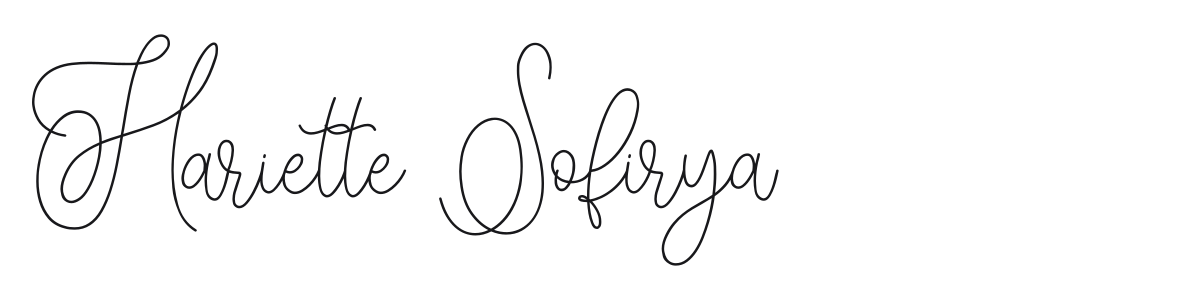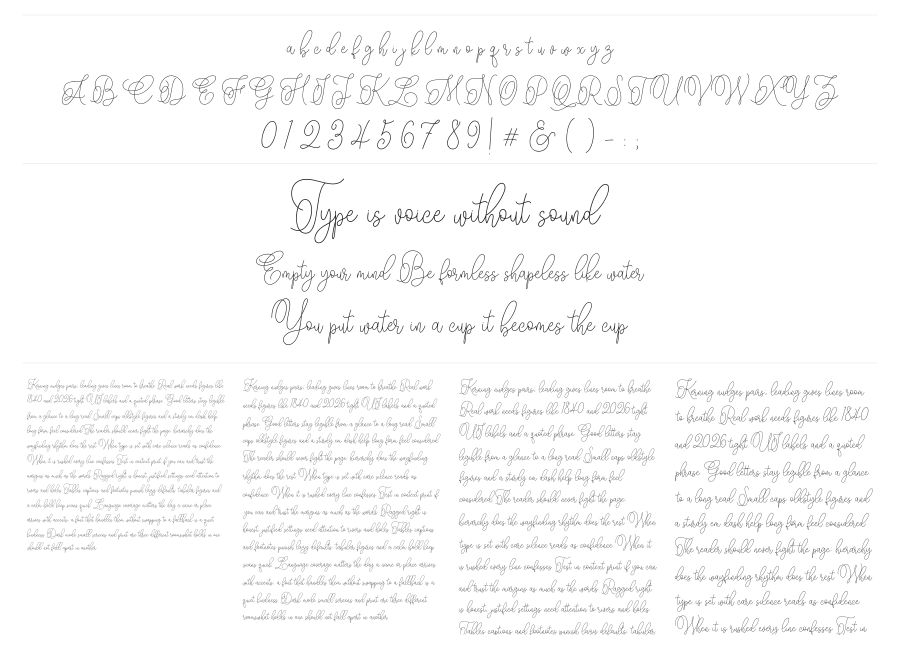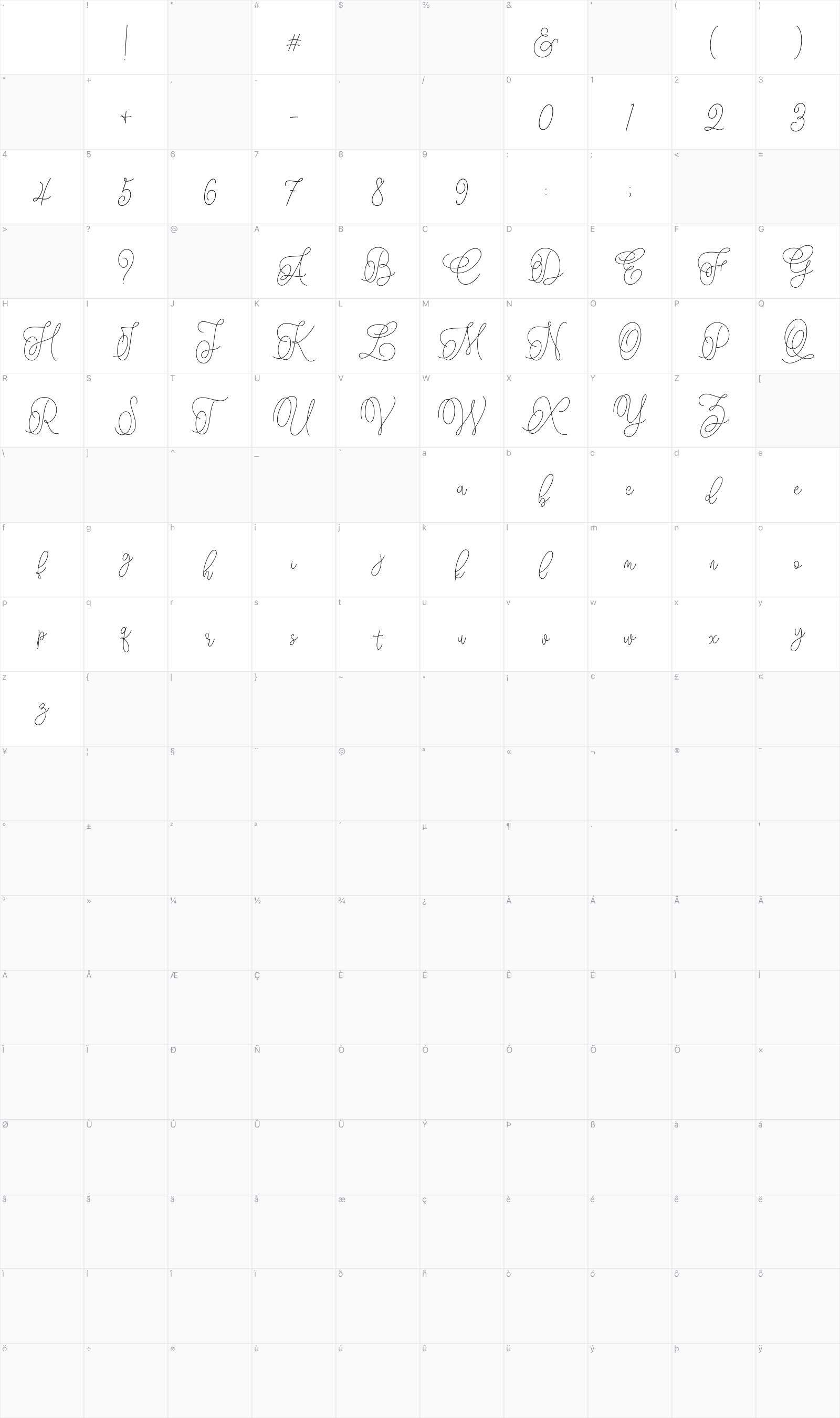
Hariette Sofirya
Hariette Sofirya is a thin monoline connected script with flowing calligraphic curves and near-zero stroke contrast. Its looping ascenders and smooth letter connections give it a handwritten elegance rooted in Spencerian and copperplate traditions. The hairline weight keeps it feeling airy and modern rather than heavy or formal.